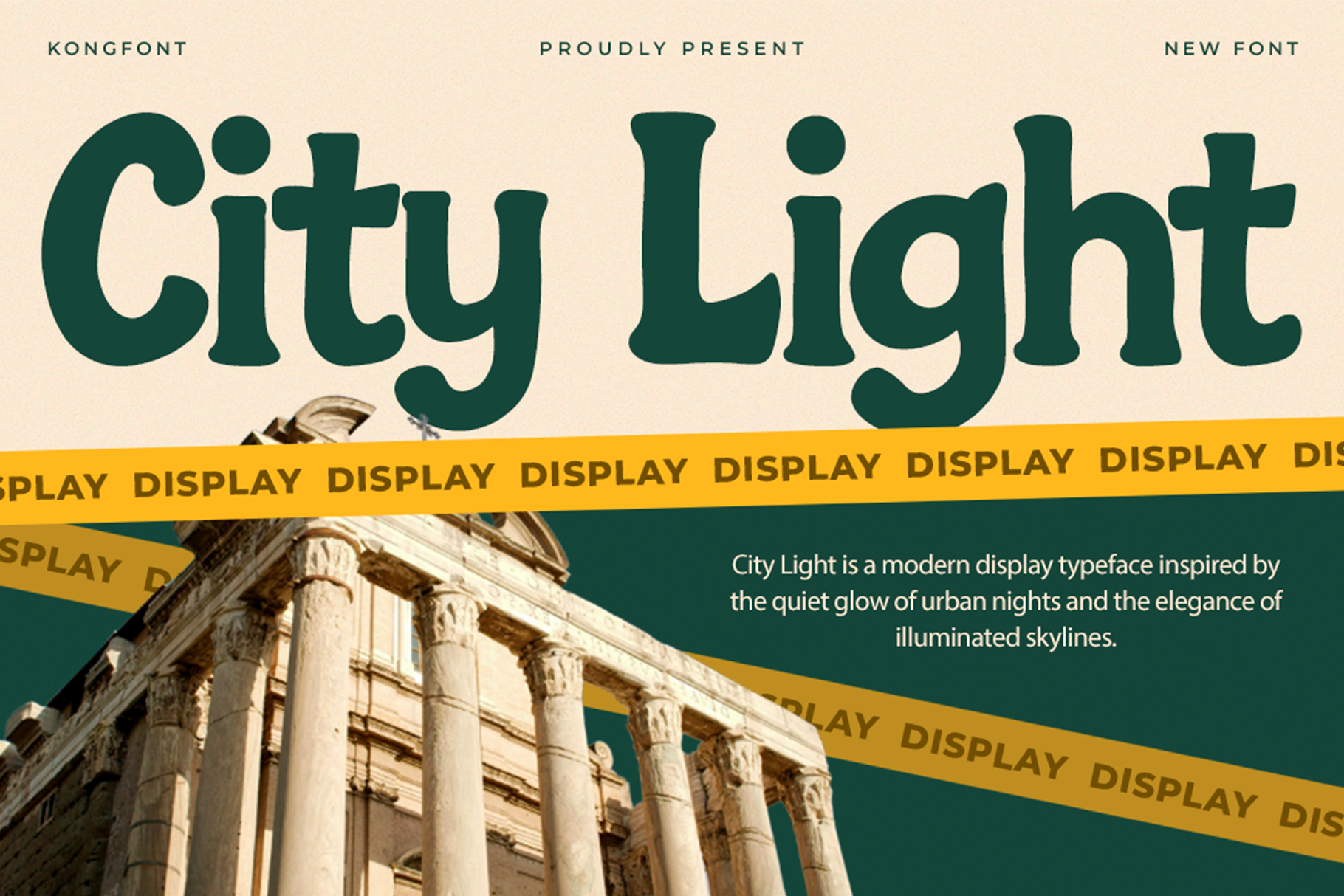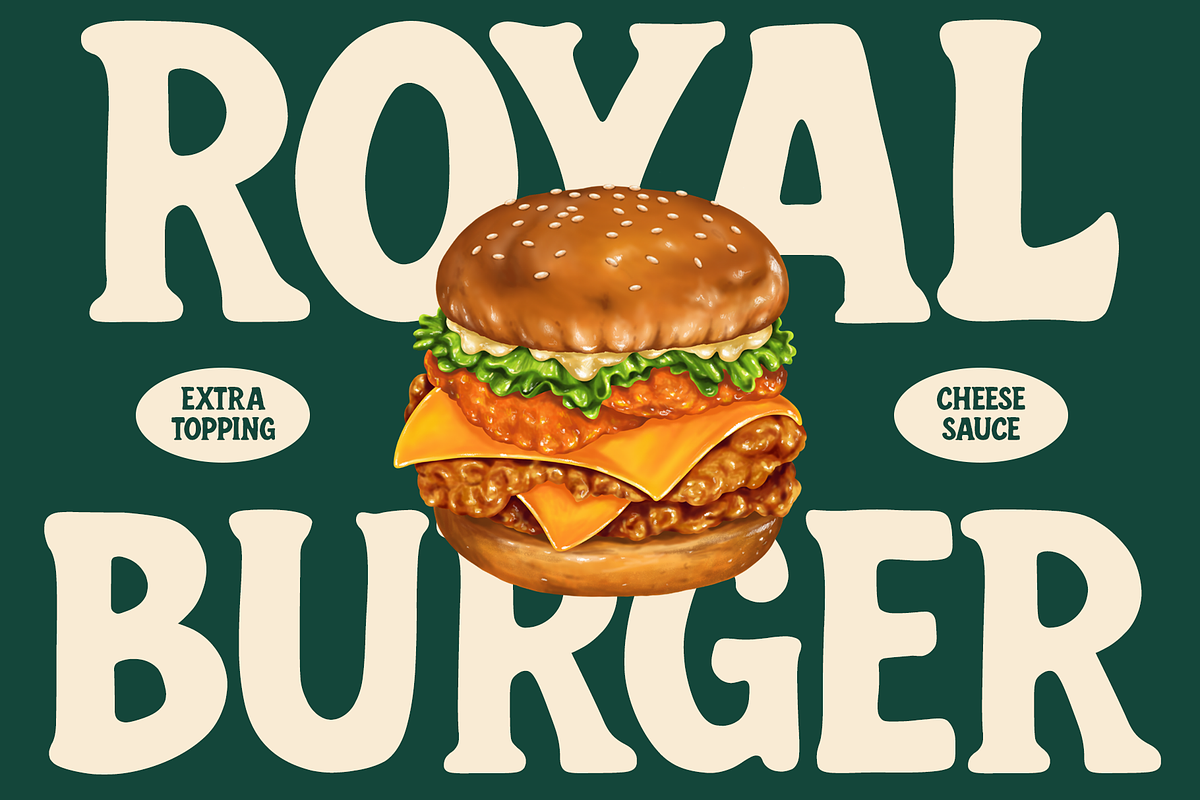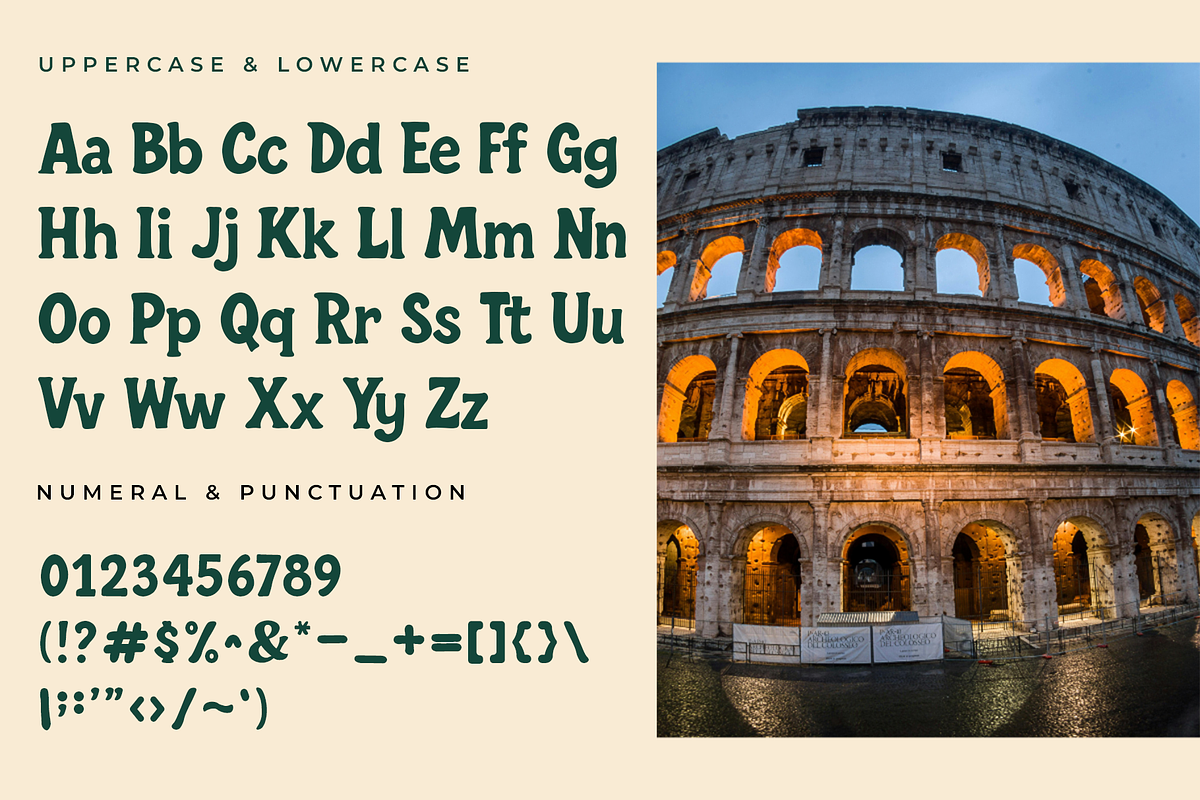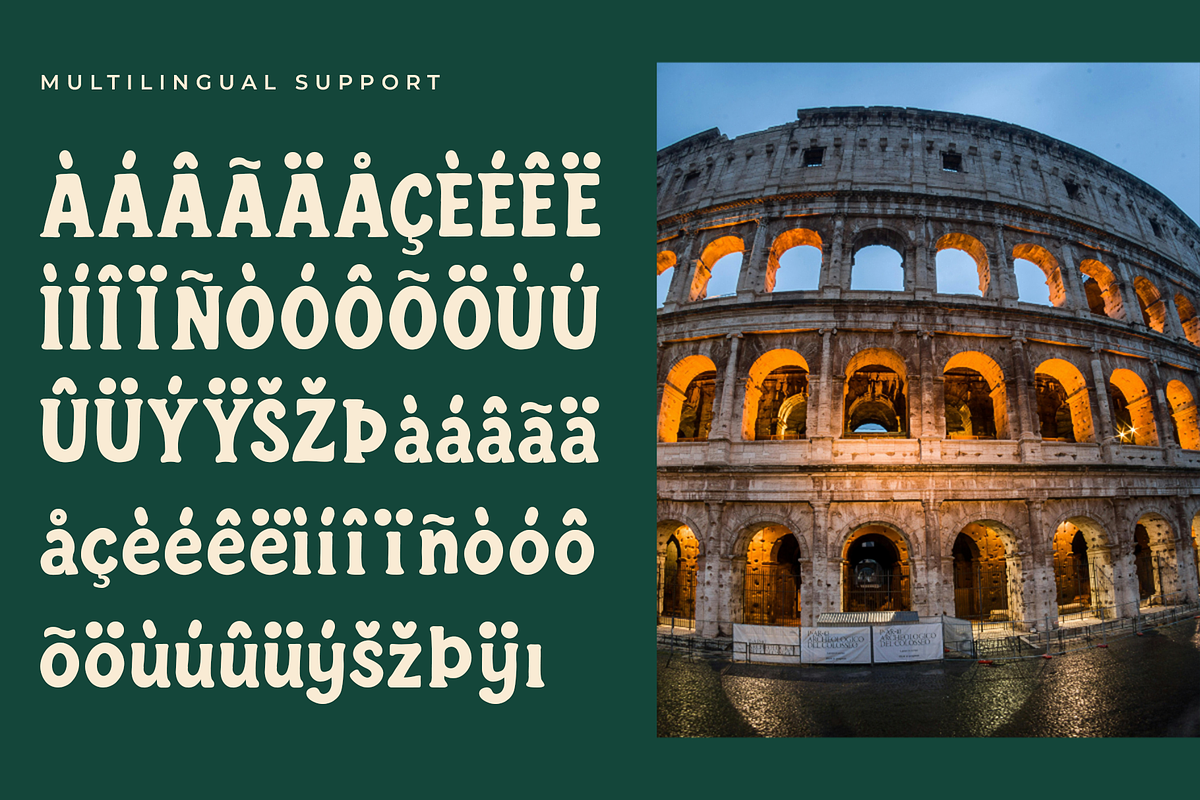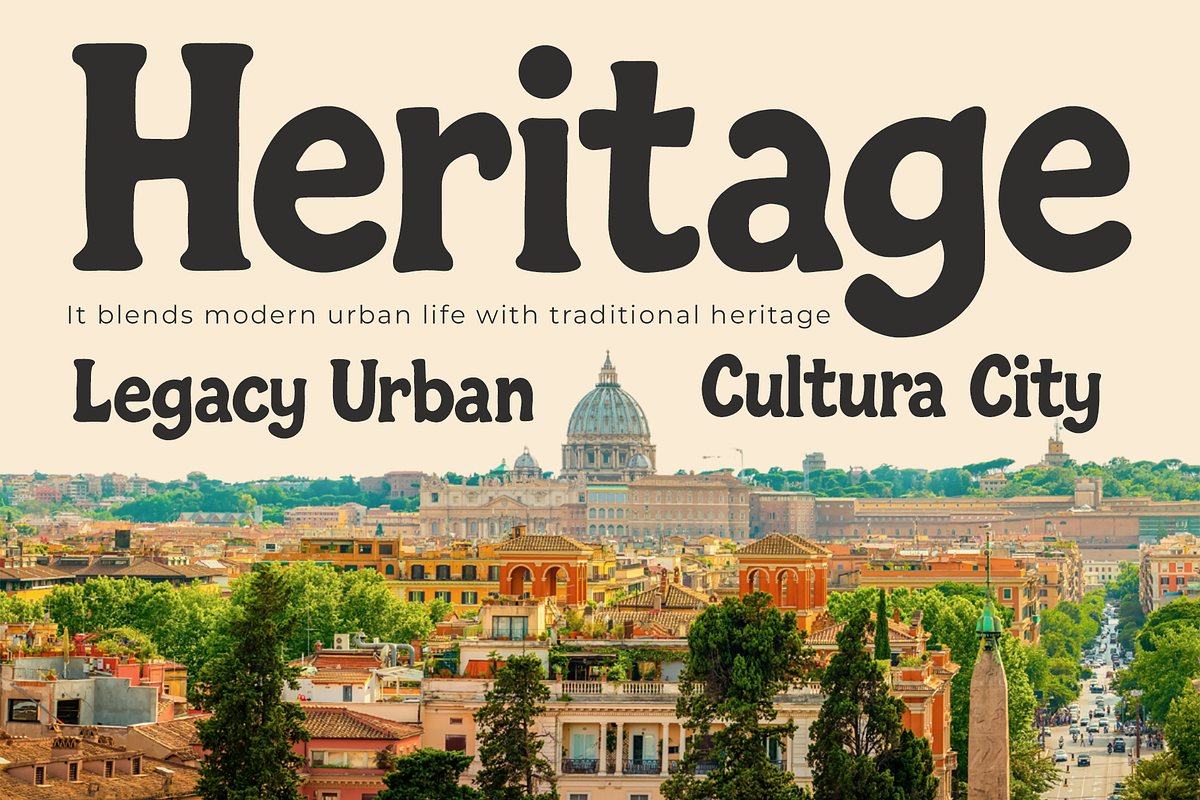
City Light – Modern Display Typeface
City Light is a modern display typeface inspired by the energy, lights, and rhythm of urban life. With its sleek lines, clean structure, and contemporary character, City Light delivers a stylish and dynamic look perfect for modern design projects.
Ideal for logos, posters, branding, nightlife events, social media graphics, advertising, packaging, and editorial headlines, City Light captures the essence of city aesthetics bright, bold, and full of life.